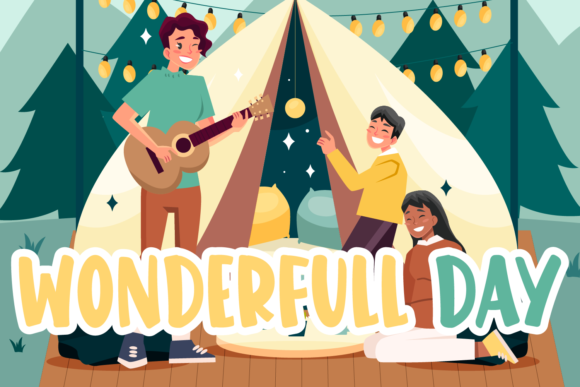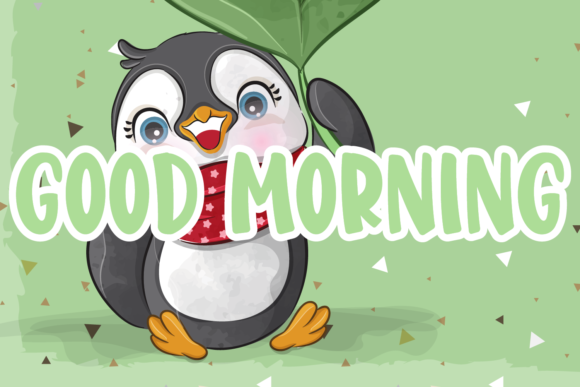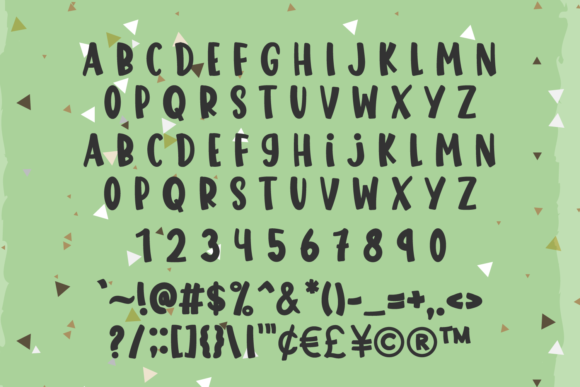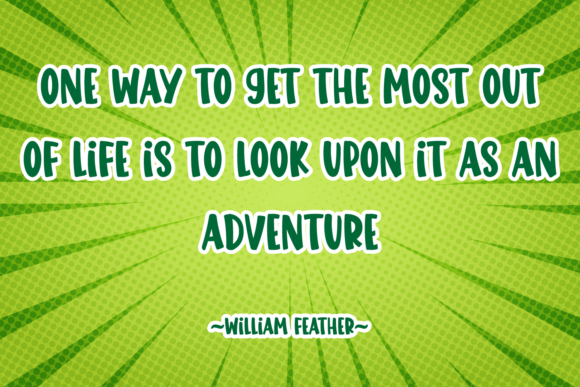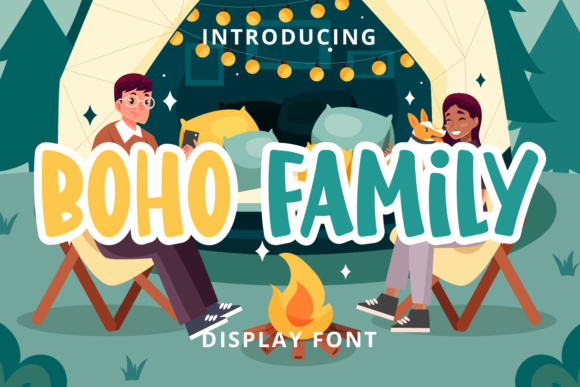
Introducing Boho Family Font: The Ultimate Choice for Playful and Quirky Designs
Are you a designer or crafter looking for a font that adds a touch of playfulness and quirkiness to your projects? Look no further than the Boho Family Font! This adorable display font is perfect for creating eye-catching logos, branding materials, social media graphics, and DIY projects that showcase your unique style.
What Makes Boho Family Font So Special?
The Boho Family Font is a cute and playful display font that boasts a charming, laid-back vibe. Its quirky personality makes it an excellent choice for designers and crafters who want to add a dash of whimsy to their work. Whether you’re creating a logo, branding materials, or social media graphics, this font is sure to make your project stand out from the crowd.
When it comes to creating a logo or branding materials, you want a font that accurately represents your brand’s personality. The Boho Family Font is an excellent choice for businesses that want to convey a playful, approachable, and creative vibe. This font is perfect for:
- Logos: Create a memorable and eye-catching logo that showcases your brand’s personality.
- Branding materials: Use Boho Family Font to create consistent branding across all your marketing materials, from business cards to brochures.
- Social media graphics: Add a touch of playfulness to your social media graphics and make your brand stand out.
Crafty DIY Projects Made Easy
If you’re a crafter or DIY enthusiast, you’ll love the Boho Family Font! This font is perfect for:
- Handmade product labels: Add a personal touch to your handmade products with custom labels featuring the Boho Family Font.
- DIY crafts: Use this font to create custom signs, banners, and other DIY projects that showcase your creativity.
- Paper crafting: Add a touch of whimsy to your paper crafting projects, such as cards, invitations, and scrapbook pages.
Key Features of Boho Family Font
Here are some key features that make Boho Family Font a must-have for designers and crafters:
- Playful and quirky personality
- Cute and charming display font
- Perfect for logos, branding, social media graphics, and DIY projects
- Easily readable on various devices
- Supports multiple languages
Tips for Using Boho Family Font
Here are some tips for getting the most out of the Boho Family Font:
- Pair with other fonts: Experiment with pairing Boho Family Font with other fonts to create a unique and eye-catching combination.
- Use in large sizes: This font is designed to make a statement, so use it in large sizes to maximize its impact.
- Experiment with colors: Try out different colors and textures to add depth and interest to your designs.